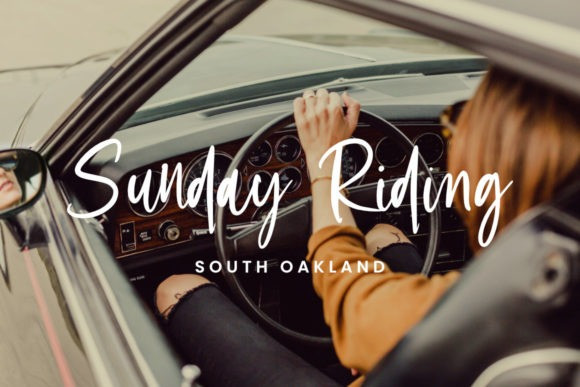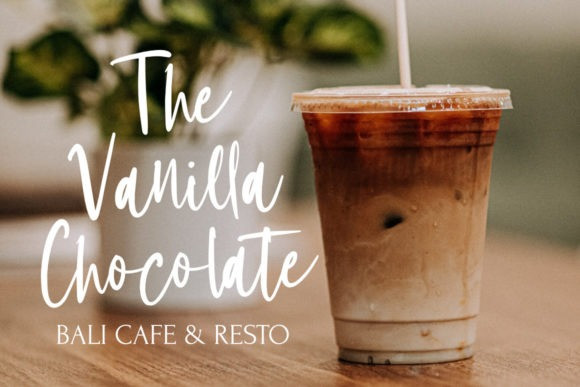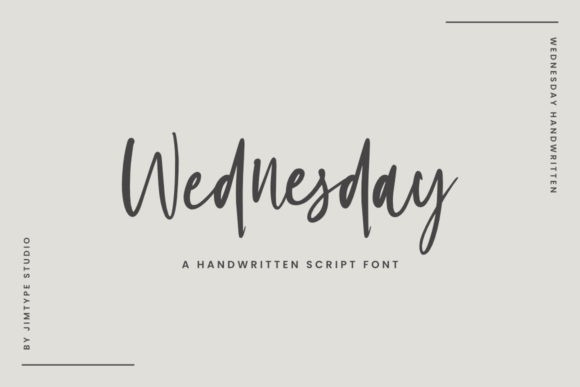
Wednesday Script Font
Wednesday is an unique handwritten font. Whether you’re using it for crafting, digital designing, presentations, or greeting card making, it’s perfect!